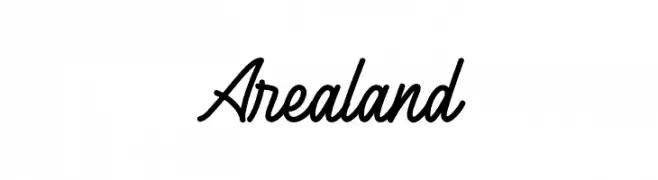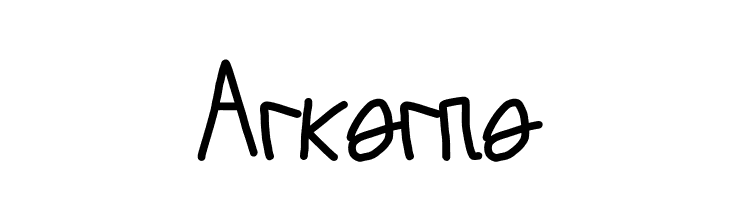
A cursive font with elegant loops and smooth transitions, perfect for formal uses.
A cursive, handwritten-style font with elegant, flowing characters.
A bold, 3D font with geometric shapes and shadow effects for a modern look.
A bold, geometric font with clean lines and a modern aesthetic.
A flowing, cursive script with elegant loops and artistic flair.
A playful, handwritten font with flowing, interconnected letterforms.
A modern, geometric font with tall, narrow characters and consistent stroke widths.
An elegant script font with flowing, cursive letterforms and sophisticated style.
A lively handwritten font with fluid, dynamic strokes and a playful style.
A bold, modern font with a geometric and futuristic design.